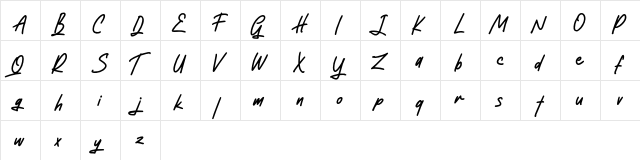
Dallime FREE Regular
Design Context for Dallime FREE Typeface
Dallime FREE is a composed and adaptable typeface that performs quietly and consistently across a wide range of design contexts.